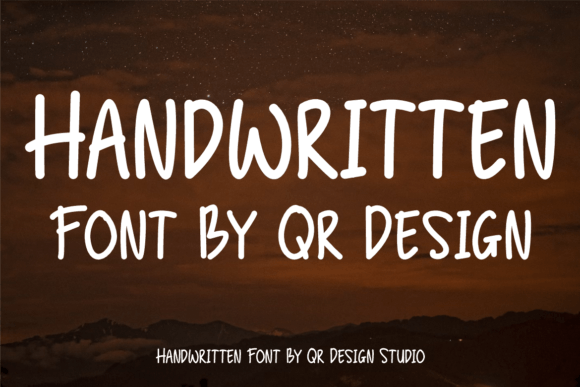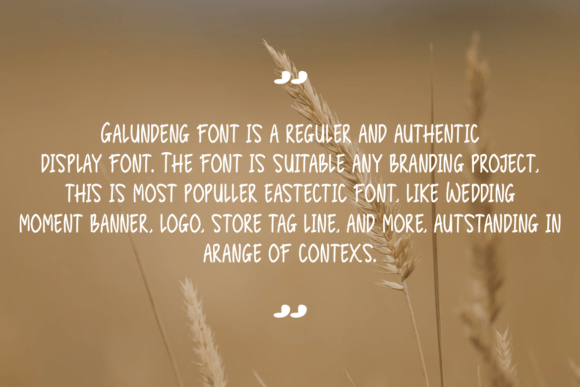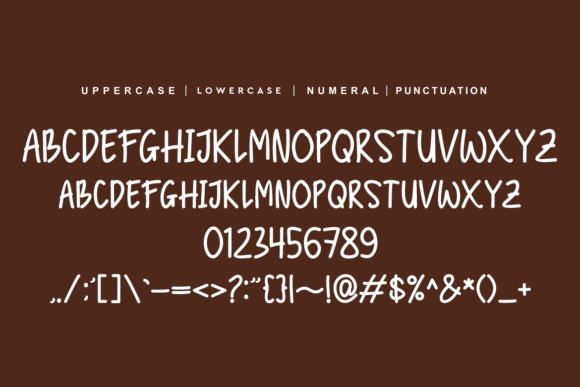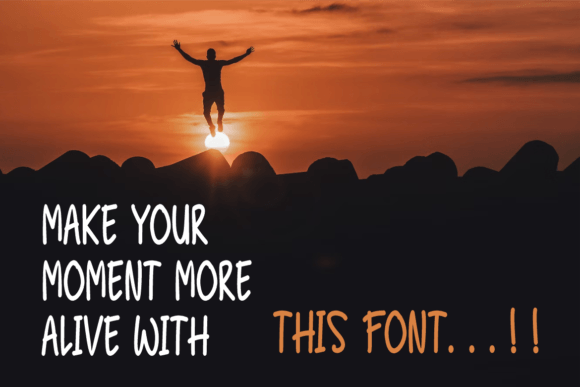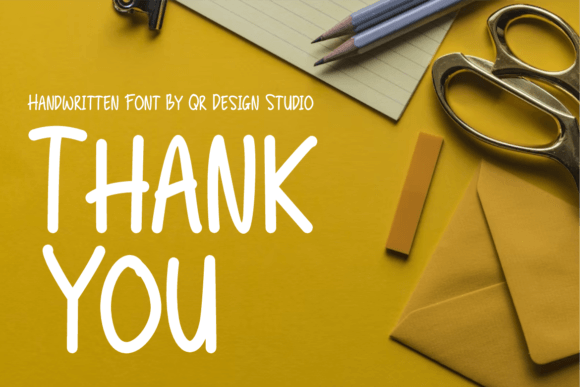
Introducing Galundeng Font: The Bold and Authentic Display Font for Your Branding Needs
In the world of typography, a font can make or break a brand’s identity. A well-designed font can elevate a brand’s visual appeal, convey its personality, and leave a lasting impression on its audience. If you’re a designer, craftsperson, or entrepreneur looking for a font that can help you create stunning branding materials, look no further than Galundeng Font. In this article, we’ll explore the features, benefits, and uses of Galundeng Font, and why it’s an excellent choice for your next branding project.
What is Galundeng Font?
Galundeng Font is a bold and authentic display font designed to make a statement. Its unique and eye-catching design makes it perfect for branding projects that require a strong visual presence. The font is versatile and can be used for a wide range of applications, from logos and signage to food packaging and more.
Key Features of Galundeng Font
- Bold and Authentic Design: Galundeng Font boasts a bold and authentic design that commands attention and makes a lasting impression.
- Wide Range of Applications: Galundeng Font is suitable for various branding projects, including logos, food packaging, signage, and more.
- Easily Readable: Despite its bold design, Galundeng Font is easily readable, making it perfect for headlines, titles, and short paragraphs.
Benefits of Using Galundeng Font
Galundeng Font offers several benefits that make it an excellent choice for designers and craftspersons. Some of the benefits include:
- Unique Visual Identity: Galundeng Font helps create a unique visual identity for your brand, setting it apart from competitors.
- Improved Brand Recognition: The font’s bold and authentic design makes it easier for customers to recognize and remember your brand.
- Versatility: Galundeng Font can be used across various platforms and applications, making it a versatile addition to your design toolkit.
- Time-Saving: With Galundeng Font, you can save time and effort in designing and refining your branding materials.
Who Can Benefit from Galundeng Font?
Galundeng Font is an excellent choice for various professionals and businesses, including:
- Graphic Designers: Looking for a bold and authentic font to elevate their branding projects.
- Craftspersons: Creating handmade products and packaging that require a unique and eye-catching font.
- Entrepreneurs: Building a brand identity that stands out in a crowded market.
- Marketing Agencies: Seeking a versatile font for their clients’ branding and advertising needs.
Galundeng Font is a bold and authentic display font that’s perfect for branding projects that require a strong visual presence. Its unique design, versatility, and ease of use make it an excellent choice for designers, craftspersons, and entrepreneurs. Whether you’re creating a logo, food packaging, or signage, Galundeng Font is sure to make a lasting impression on your audience. So why wait? Download Galundeng Font today and take your branding to the next level!